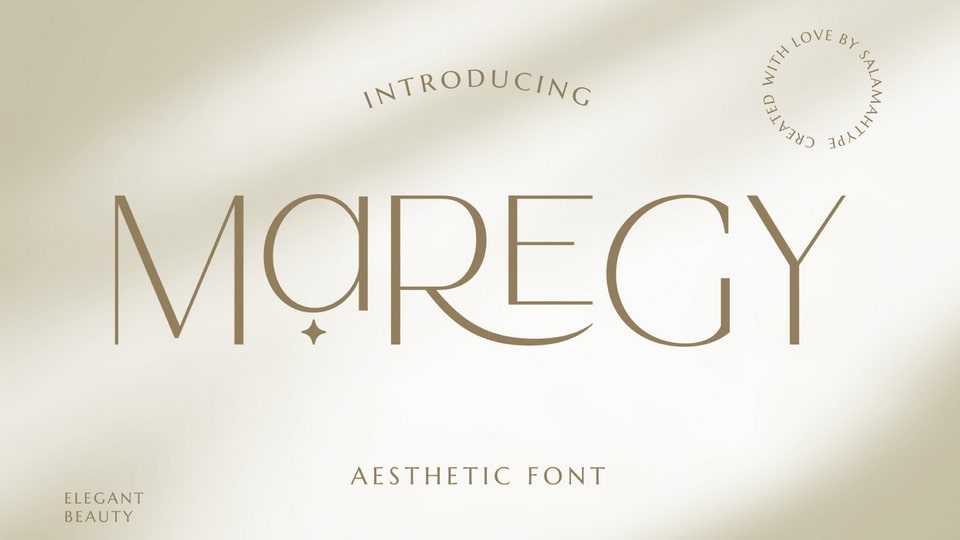
Download Maregy font, a modern sans-serif typeface with an elegant style. This font is perfect for branding projects, logos, social media posts, advertisements and so on.